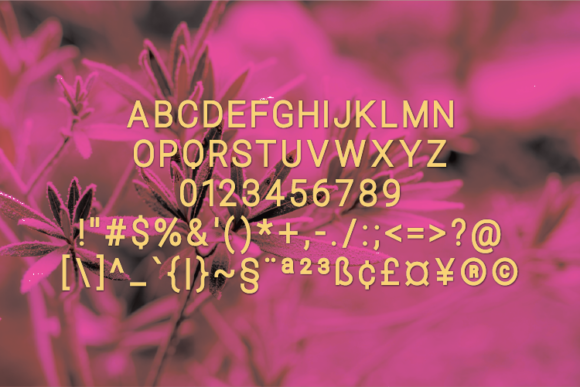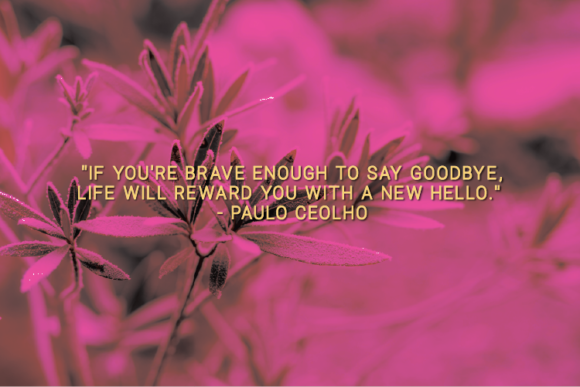
Introduction to Proftale Font
You know that moment when a design just clicks? The colors, the typography, the overall vibe – everything comes together to create something truly special. For designers, it’s a thrill to see our creative ideas take shape, and the right font can make all the difference. That’s where the Proftale Font comes in – a sleek, high-quality sans serif font that’s perfect for a wide range of projects.
With its versatility and high-quality aesthetic, the Proftale Font is a valuable addition to any designer’s toolkit. So why not give it a try and see how it can elevate your next creative project?
Key Features of Proftale Font
- High-quality design: Proftale Font is a meticulously crafted font, perfect for creative projects that demand a premium look and feel.
- Transparent background: The font’s transparent background allows for easy layering and manipulation, making it ideal for digital design applications.
- Unique characteristics: Proftale Font features a unique blend of modern and vintage elements, making it perfect for designers who want to add a touch of sophistication to their creative projects.
Honest Review: Proftale Font
I recently had the chance to experiment with the Proftale Font, and I must say it’s a great addition to any designer’s toolkit. With its high quality design and transparent background, it’s perfect for a wide range of creative projects.
- ✨ The font is highly customizable, allowing you to adjust the size, color, and style to suit your design needs.
- ✨ The font is well-designed, with a clean and modern aesthetic that’s sure to elevate any design project.
- ⚠️ The font is only available in a limited number of weights, which may limit its versatility for some designers.
- ⚠️ The font may not be suitable for use in very small text sizes, as it can become difficult to read.
The Proftale Font is a high-quality design resource that can be used in a variety of creative projects. It’s a free download that can add a unique touch to your designs. One of the standout features of this font is its transparent background, making it easy to overlay on top of other images or backgrounds.